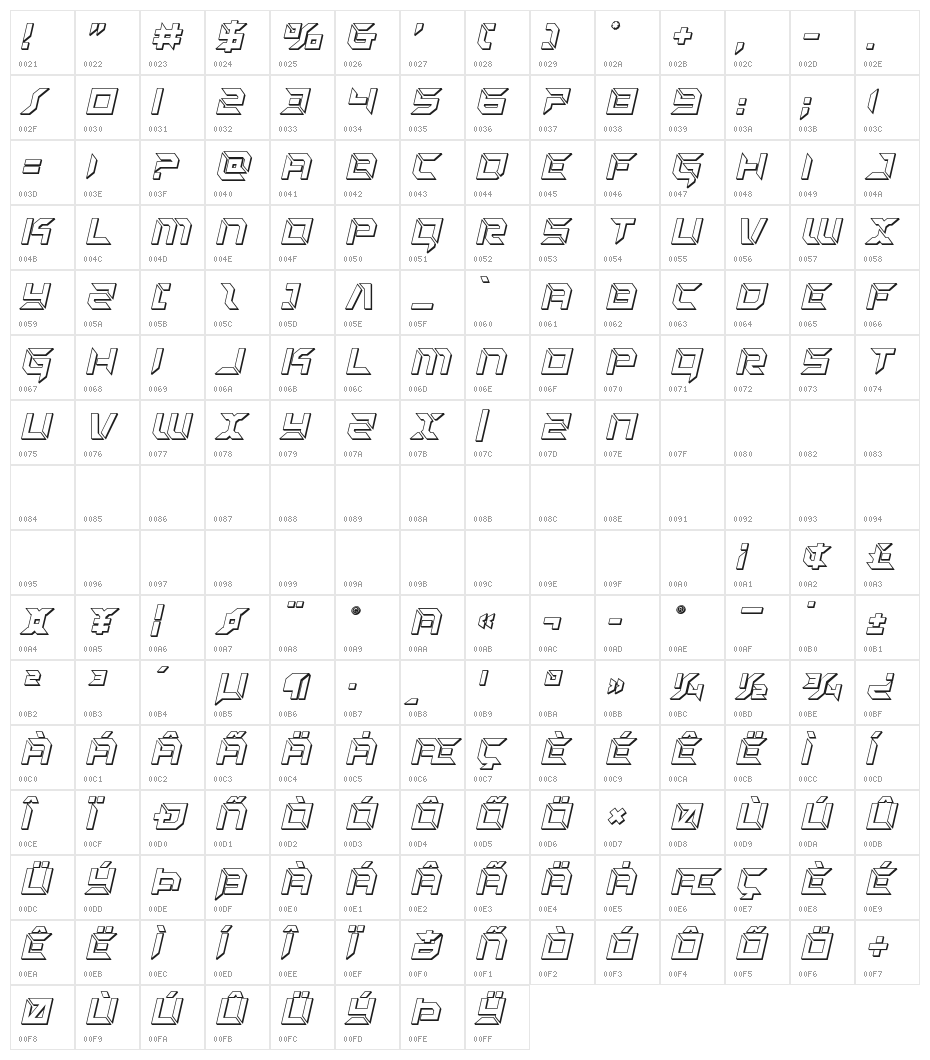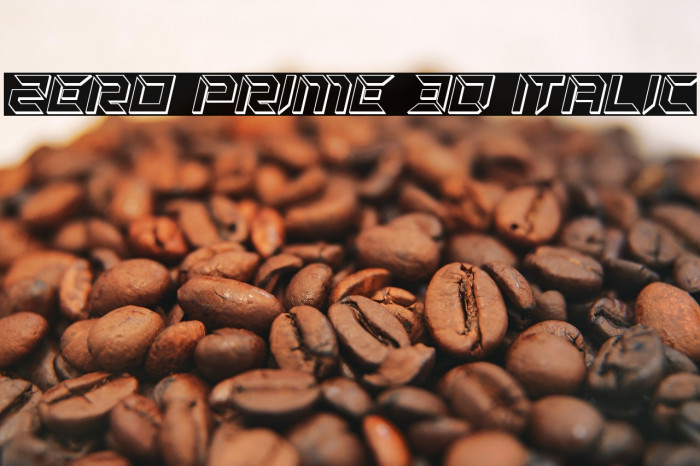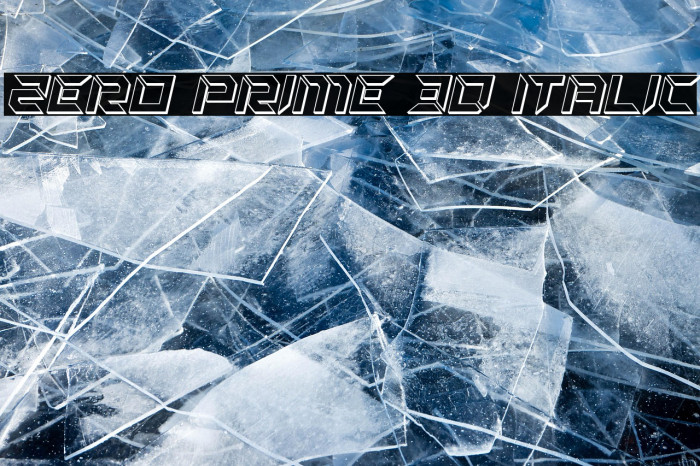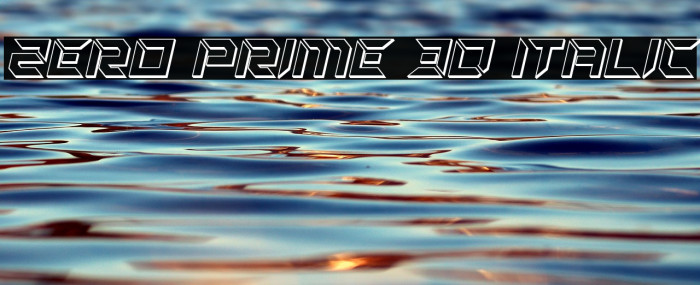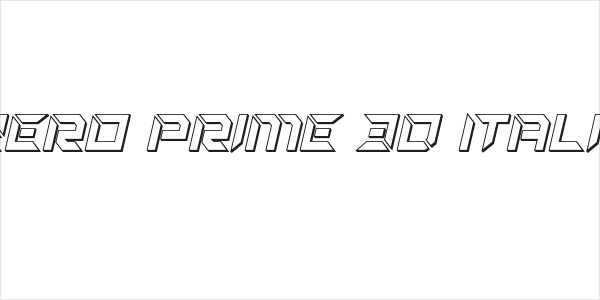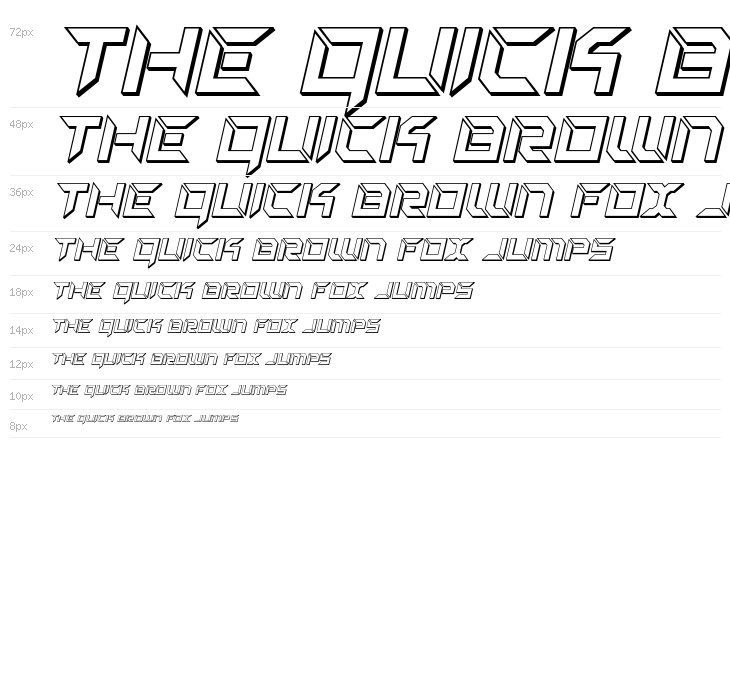
Zero Prime 3D Italic Font
Zero Prime 3D Italic Description
This font features a bold, futuristic 3D design with a distinct italic slant. The characters are outlined, creating a sense of depth and dimension. Each letter and number is crafted with angular lines and sharp edges, giving it a dynamic and modern appearance. The unique geometric style is consistent across uppercase, lowercase, and numerals, while special characters maintain the same aesthetic. The font's structure is both eye-catching and legible, making it suitable for various creative applications.